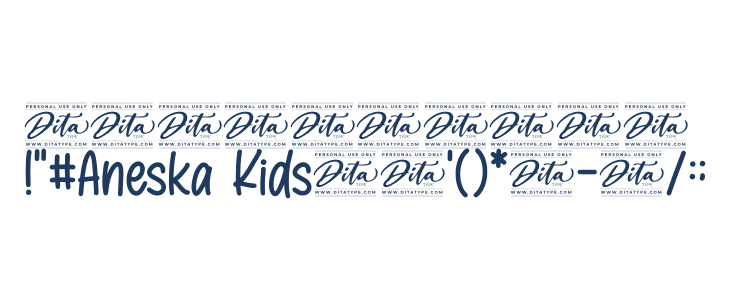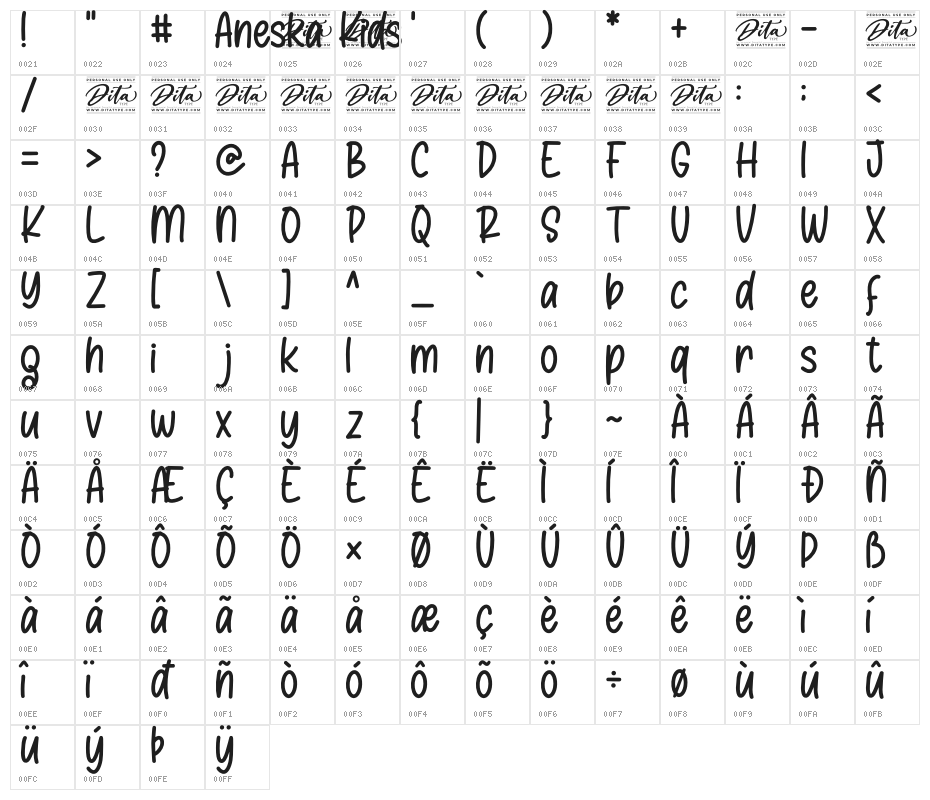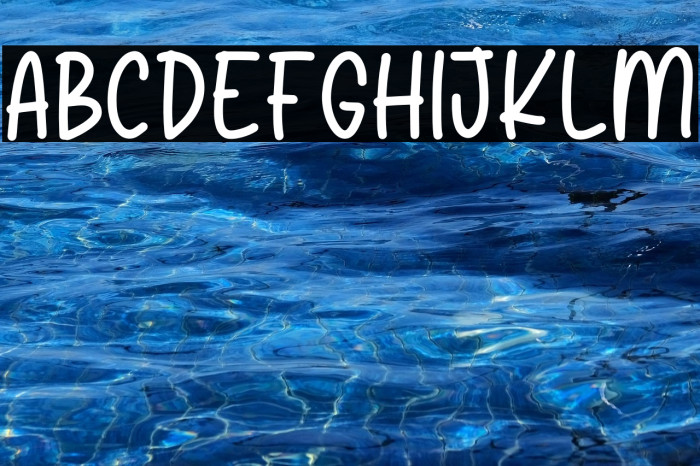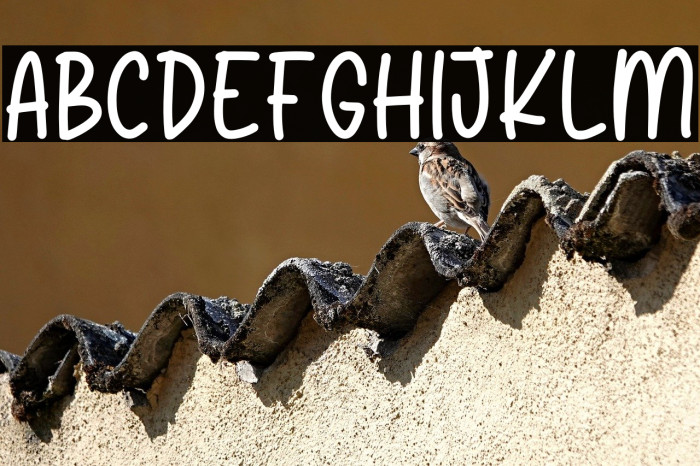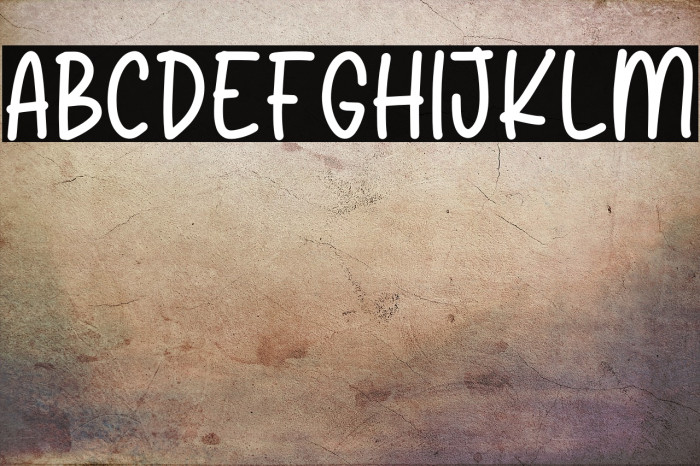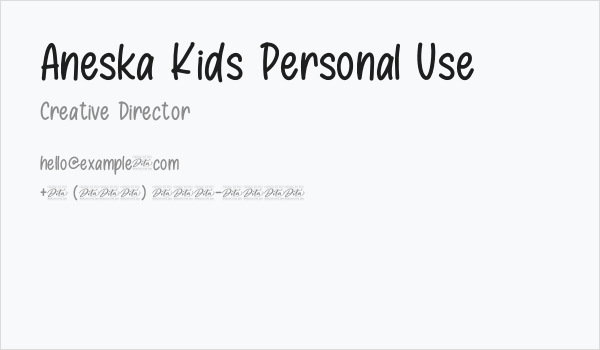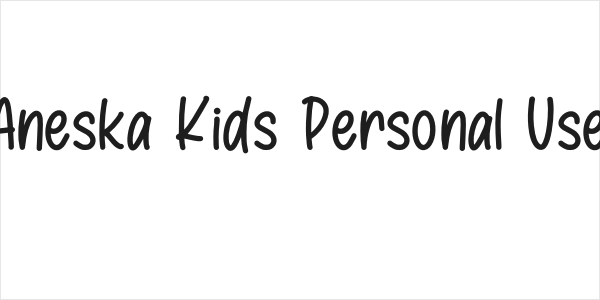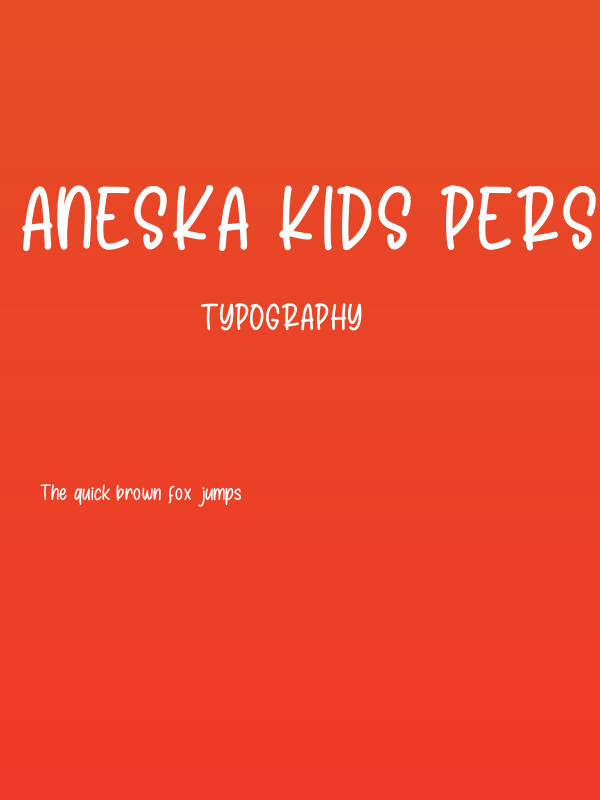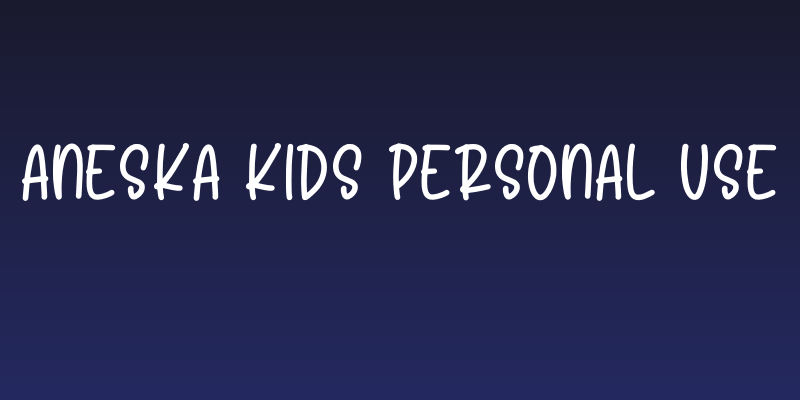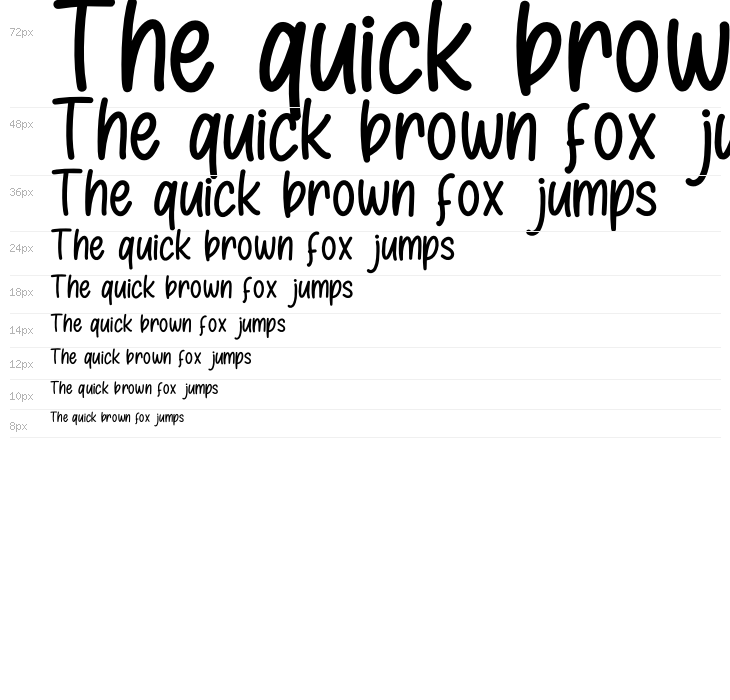
Aneska Kids Personal Use Font
Aneska Kids Personal Use Description
This playful and whimsical font features a handwritten style with smooth, rounded edges and a casual feel. The letters are slightly slanted, giving it a dynamic and lively appearance. It maintains a consistent stroke width throughout, which adds to its approachable and friendly vibe. The uppercase and lowercase letters are well-balanced, and the font includes a full set of numerals and special characters, making it versatile for various uses. Its informal style is perfect for projects that require a touch of fun and creativity.
| Proposed Projects | Ideal for children's books, playful branding, greeting cards, and educational materials. |